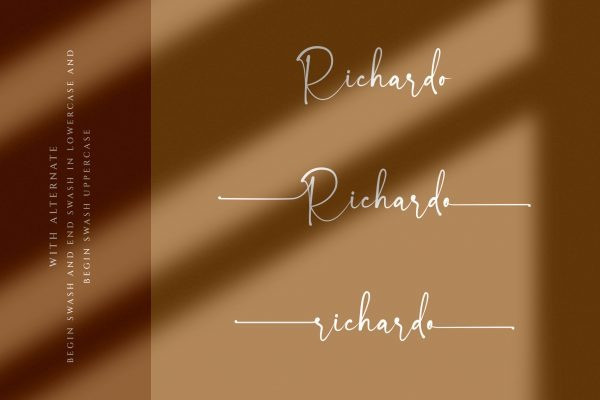
Surreally Script Font
This amazing handwritten font is light and elegant, will emphasize your personality in any project and will charm you with its signature. Surreally is the great choice for watermark on photography, signature or signature logo design, quotes, album cover, magazine, business card and many other design project.